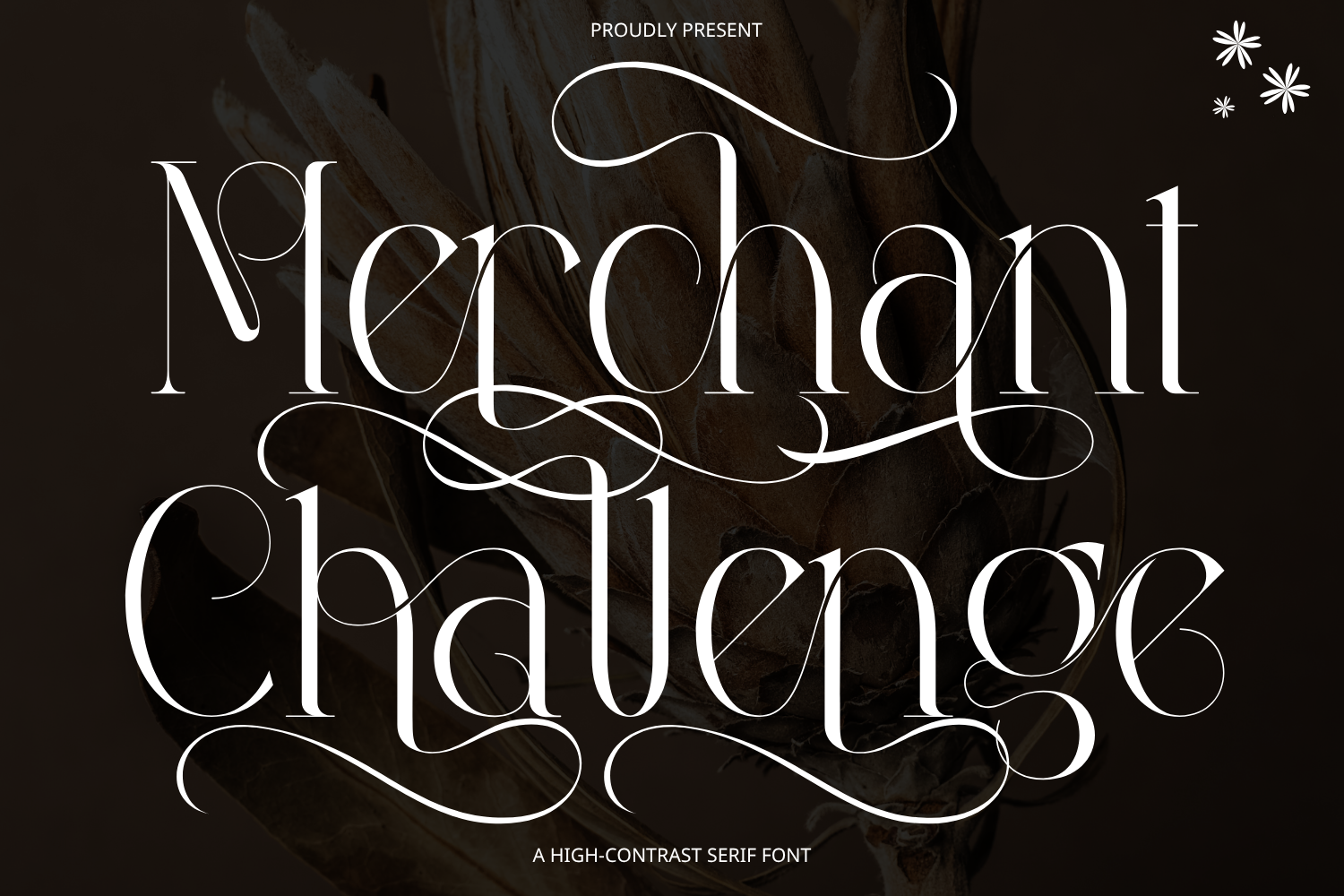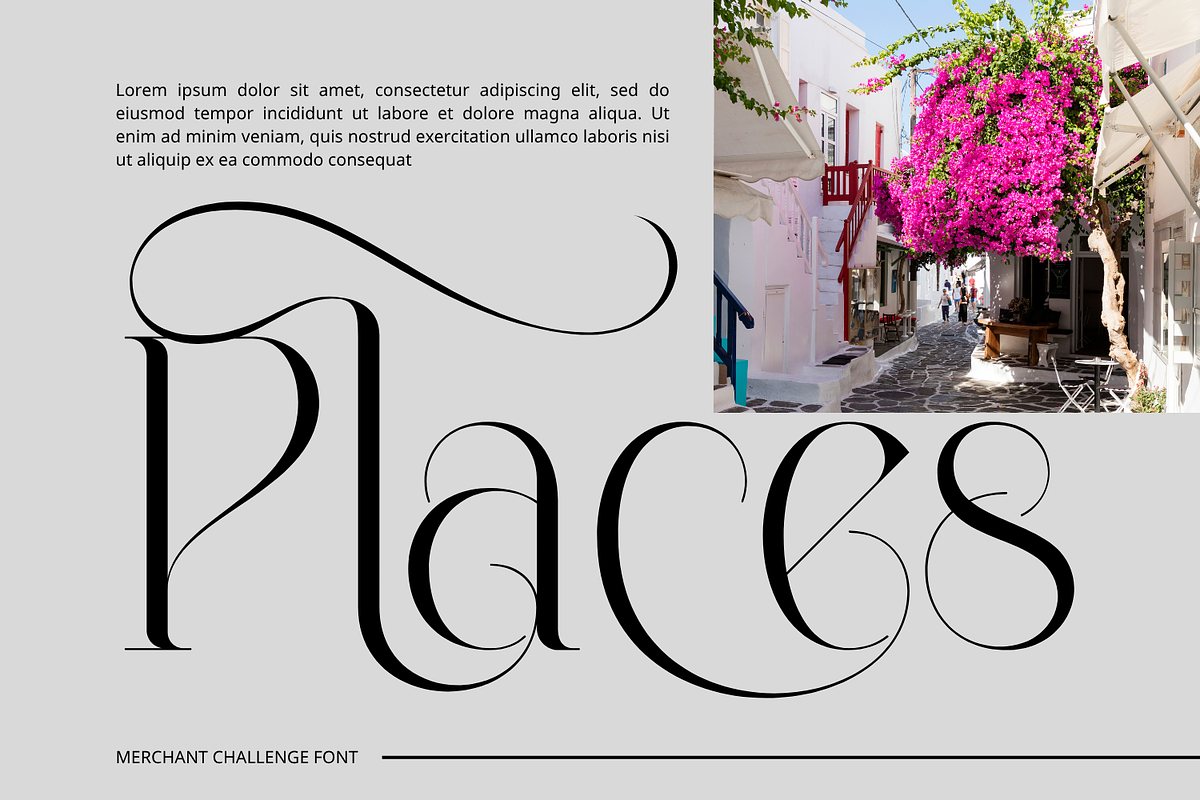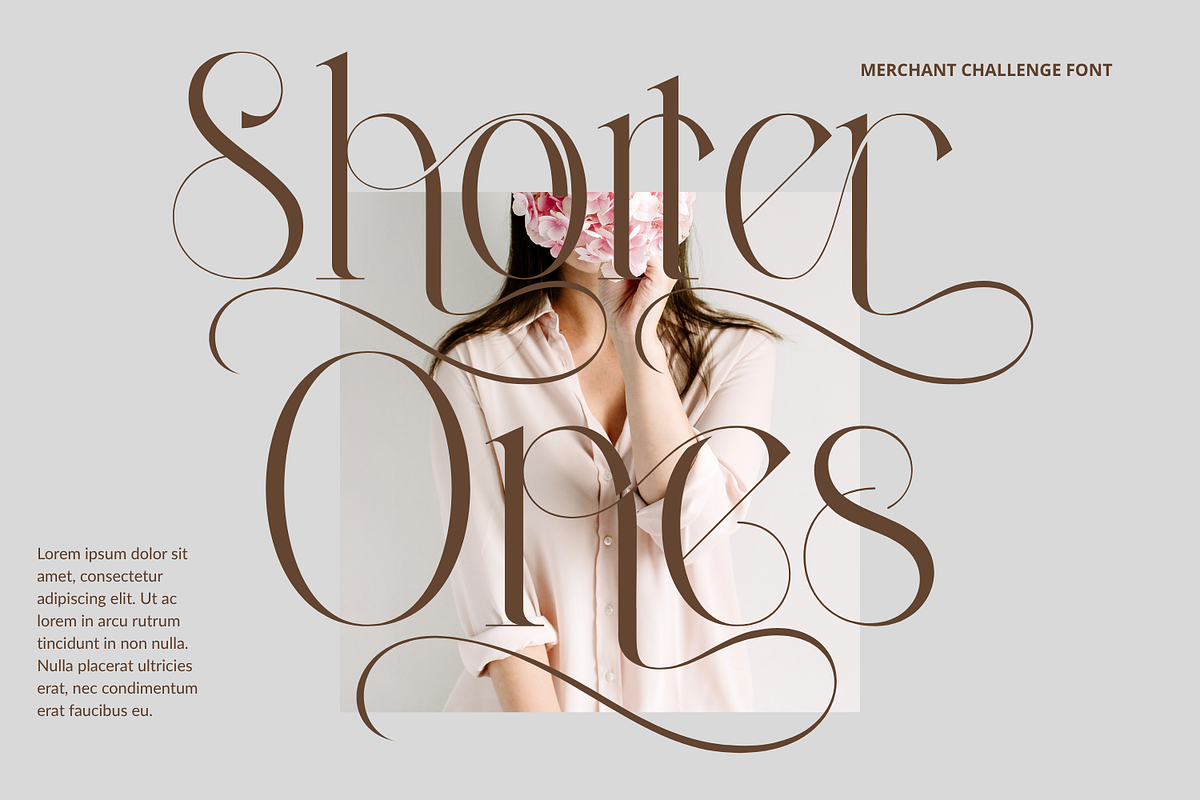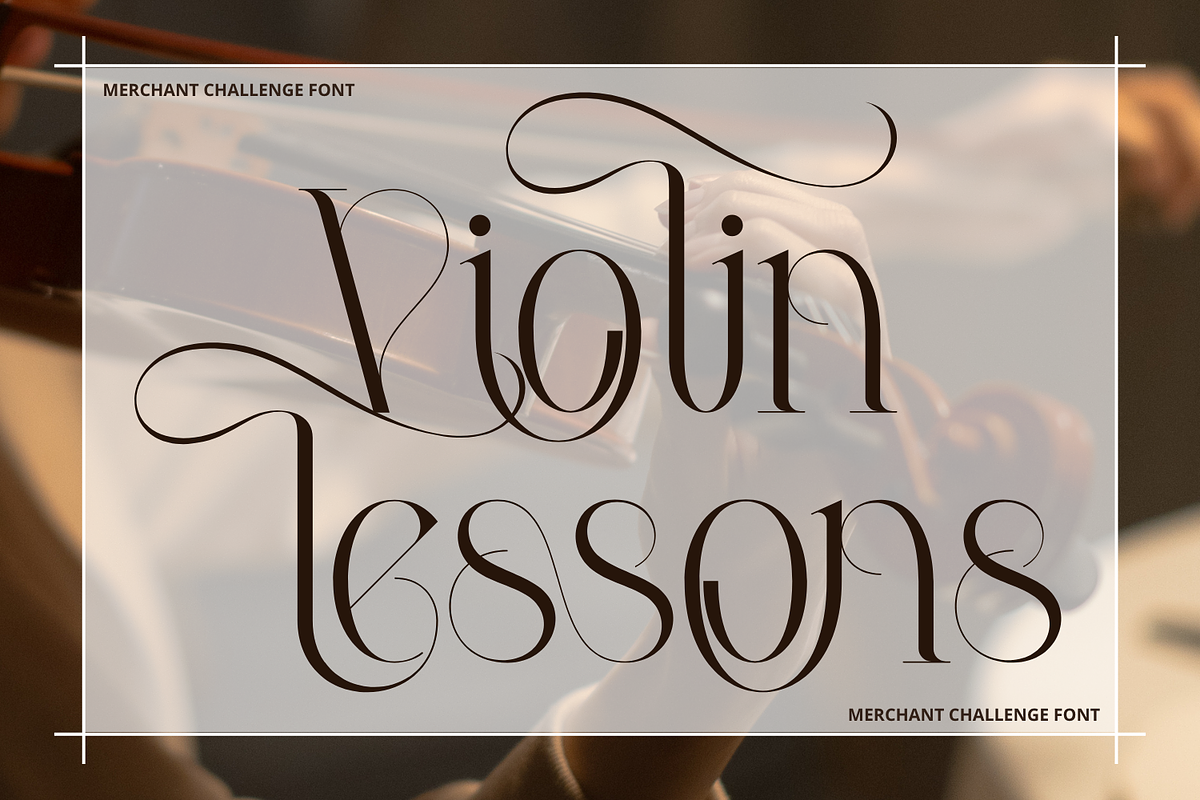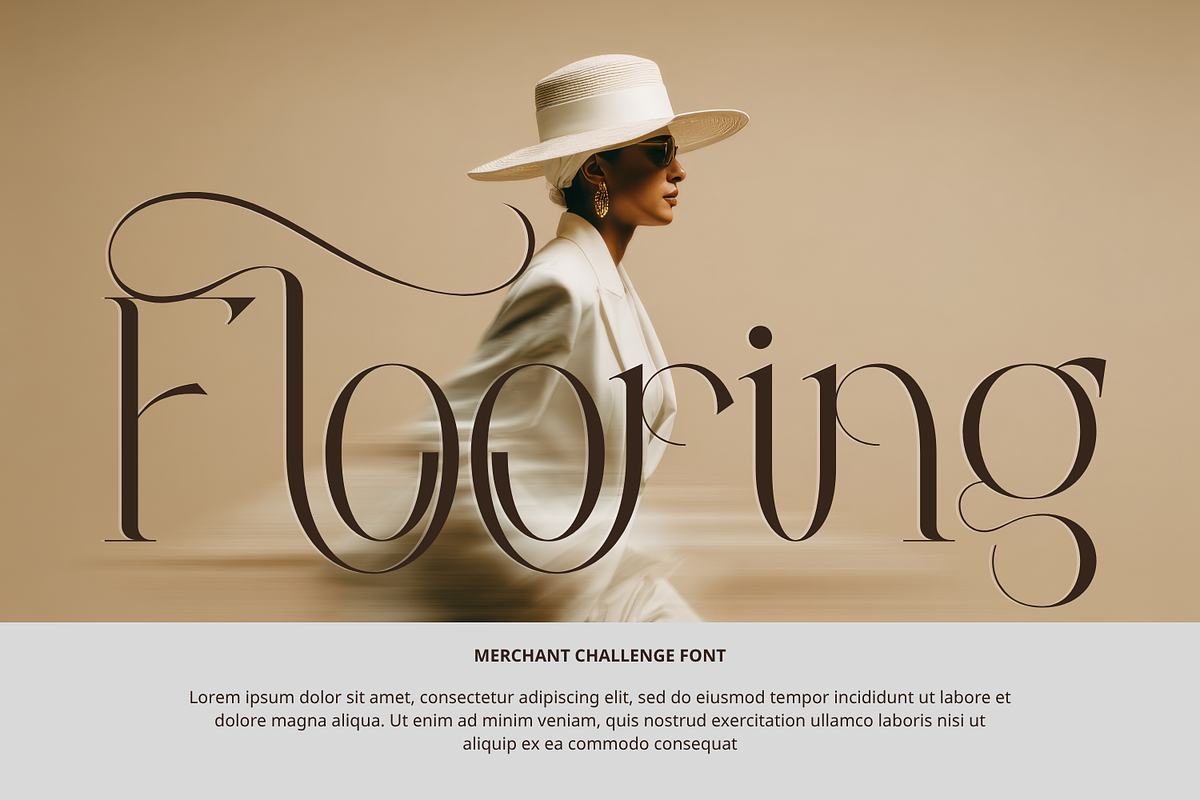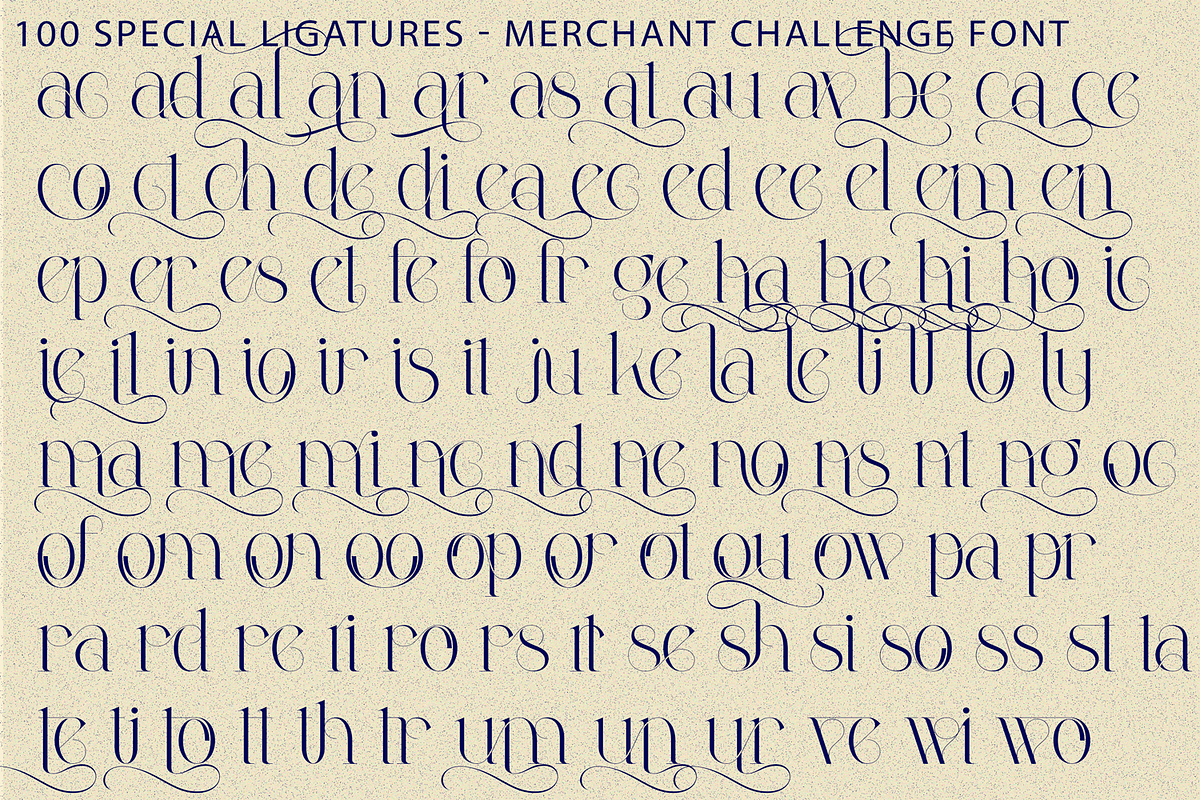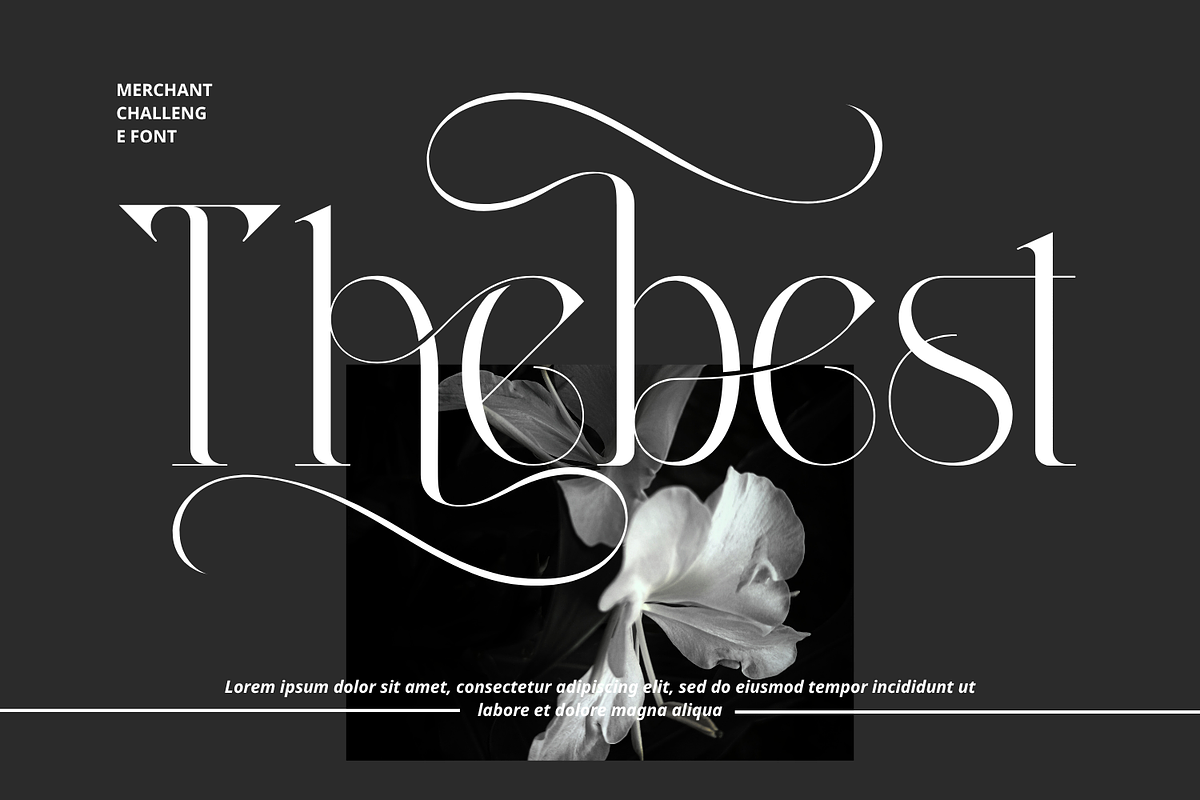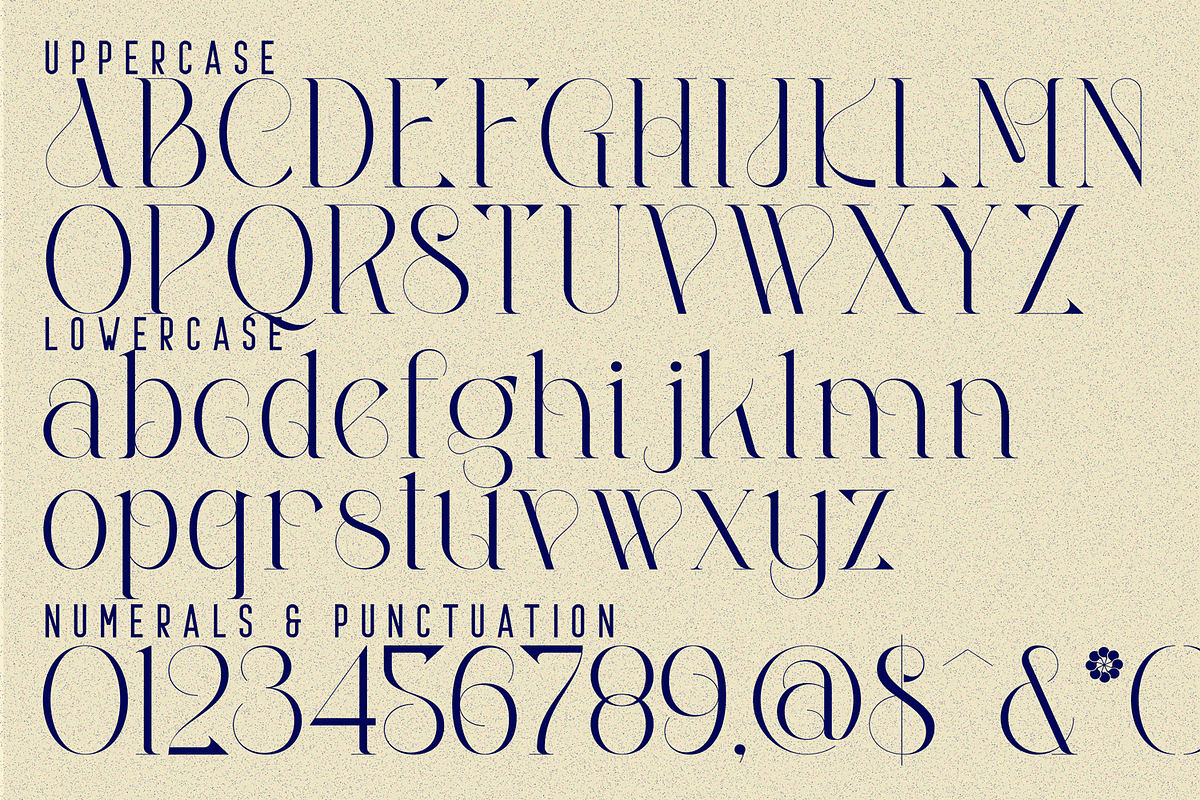
Merchant Challenge Font
Merchant Challenge Font – Modern Luxury Calligraphic Serif & Ornamental Flourish Display Font, is a breathtaking luxury calligraphic serif display font designed at the intersection of modern high-fashion typography and romantic Victorian flourishes. Defined by its extreme stem contrast, sweeping hairline swashes, and elaborate looping flourishes, this typeface transforms standard headlines into bespoke typographic art.
Engineered with dramatic extended swashes—such as sweeping upper bridges and fluid descender curves that interweave naturally across words—Merchant Challenge provides effortless elegance for high-end design layouts. It is the definitive typographic choice for luxury wedding stationery, boutique perfume and cosmetic packaging, fashion magazine covers, premium wine labels, and romantic brand identities.
🔤Features:
Uppercase & Lowercase Letters
Around 100 Special Ligatures & Alternates
Accented Characters for multilingual support
🔤About 100 ligatures combined with Stylistic Alternates Font:
ac ad al an ar as at au av be ca ce ch co ct de di ea ec ed ee el em en ep er es et fe fo fr ge ha he hi ho ie ic il in io ir is it ju ke la le li ll lo ly ma me mi nc nd ne ng no nt ns oc of om on oo op or ot ou ow pa pr ra rd re ri ro rs rt se sh si so ss st ta te th ti to tr tt um un ur ve wi wo